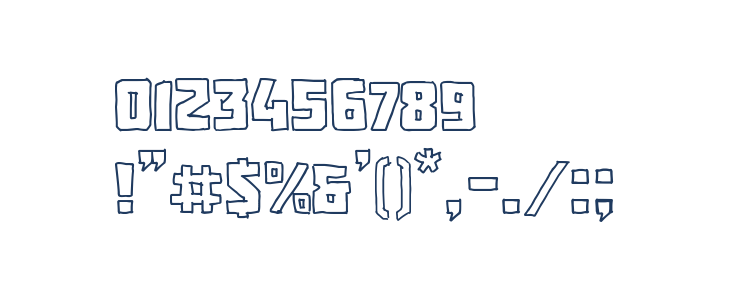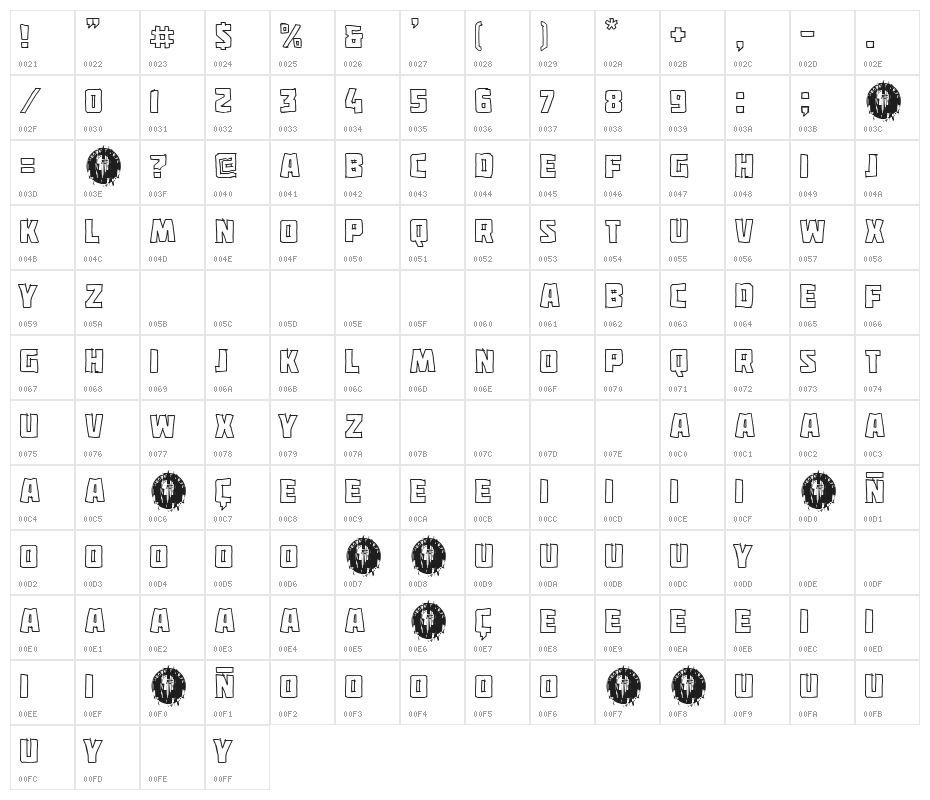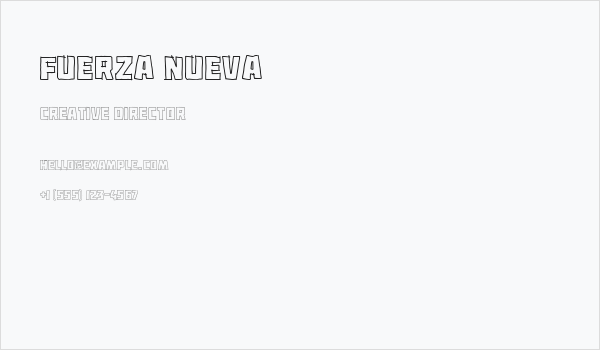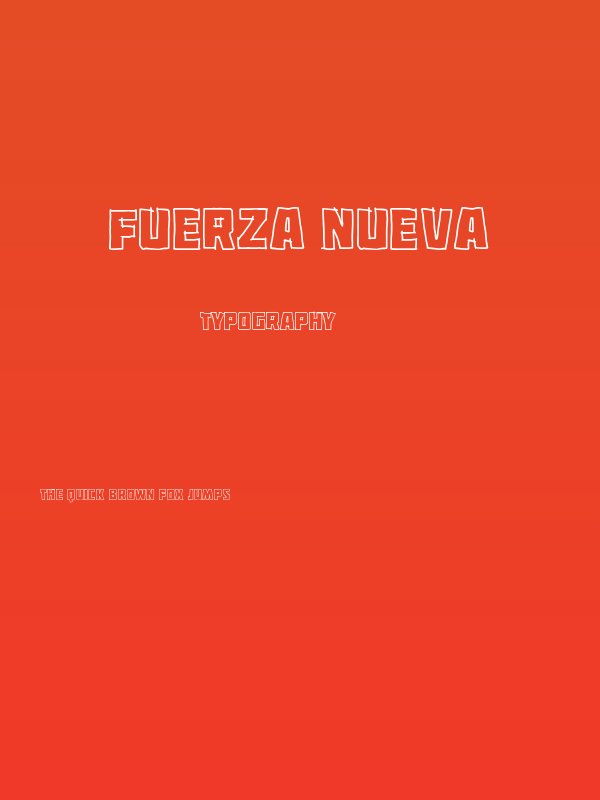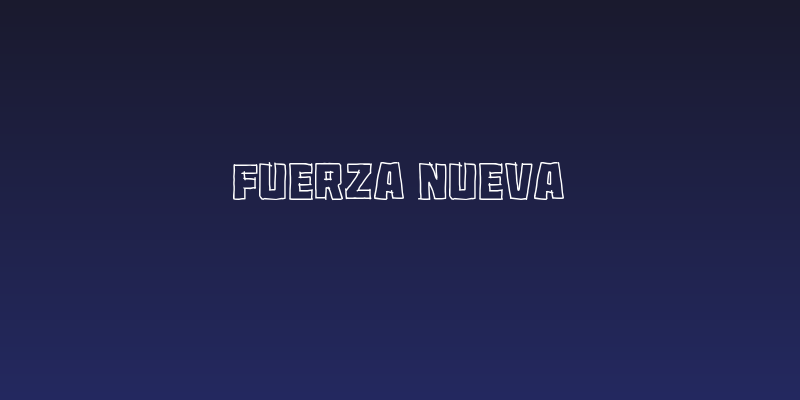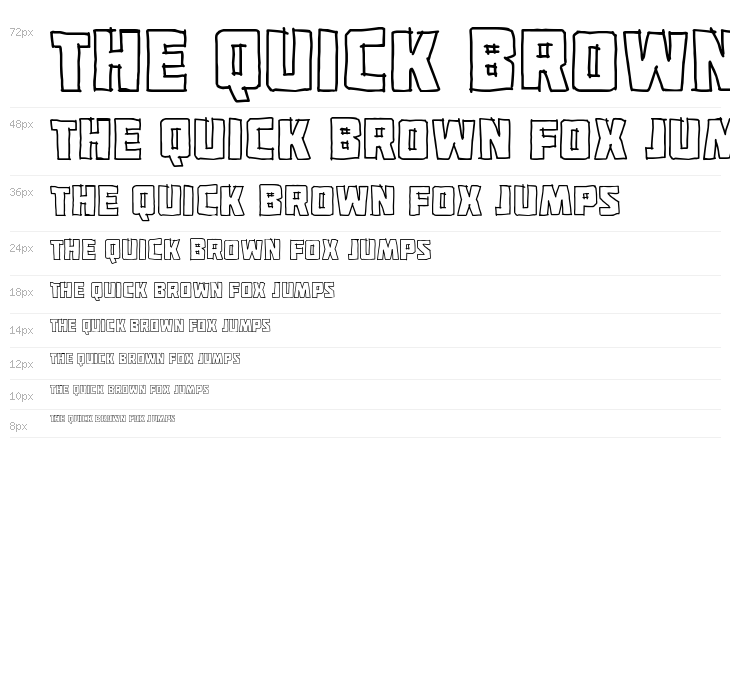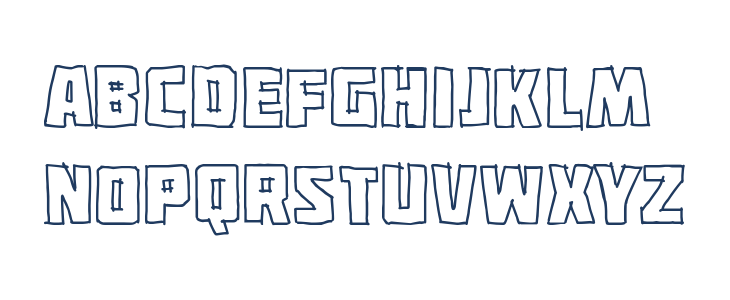
Fuerza Nueva Font
This font features a bold, rugged style with a hand-drawn appearance, characterized by thick, uneven strokes and a slightly distressed look. The uppercase letters are blocky and angular, giving a sense of strength and impact. The numbers and special characters maintain this bold, irregular style, adding to the overall cohesive appearance. The font's unique, rough edges and bold presence make it stand out, ideal for projects that require a strong visual impact.
| Proposed Projects | Perfect for posters, logos, and branding projects that require a strong, impactful presence. |